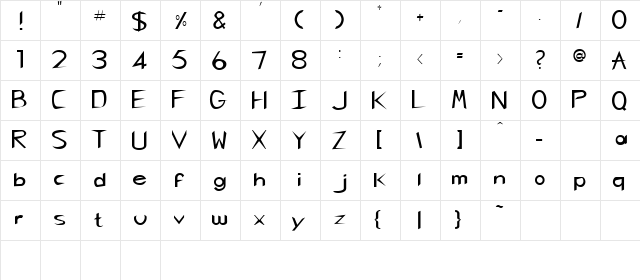
Lazar Normal Font Preview
Lazar Normal
Design Context for Lazar Typeface
Lazar is a composed and adaptable typeface that performs quietly and consistently across a wide range of design contexts.